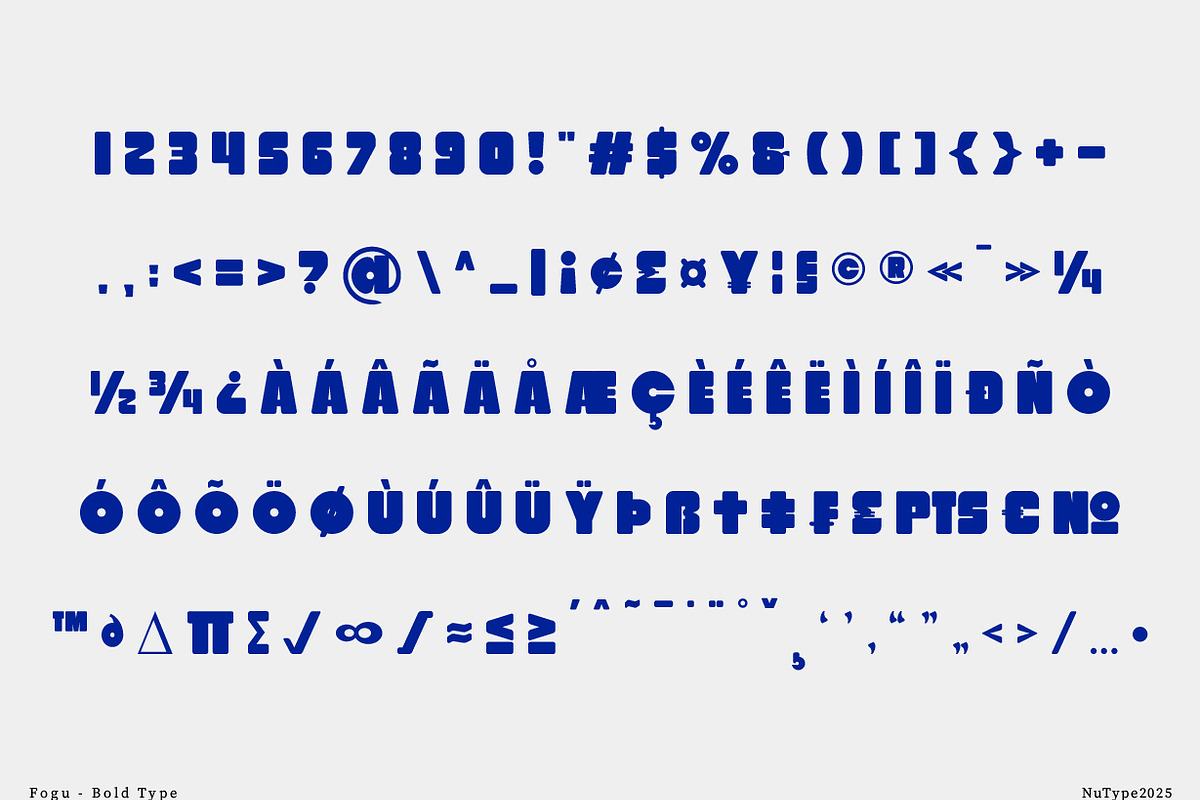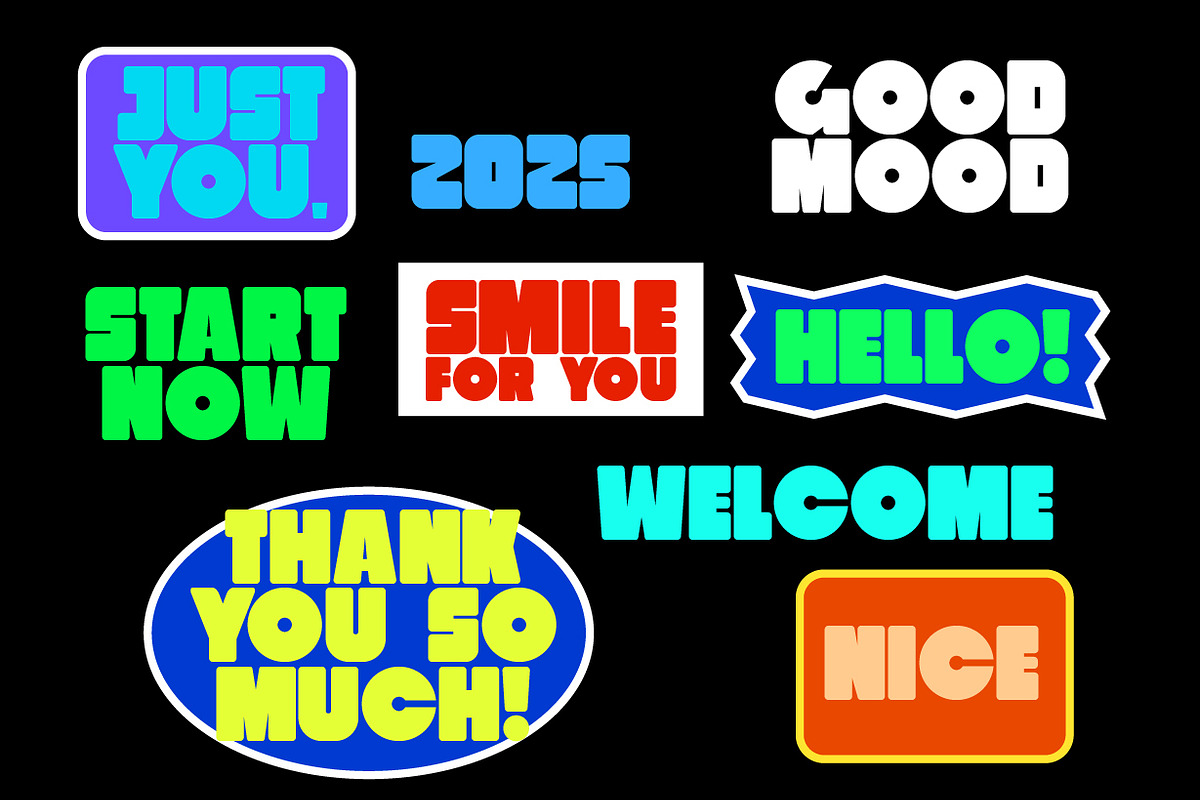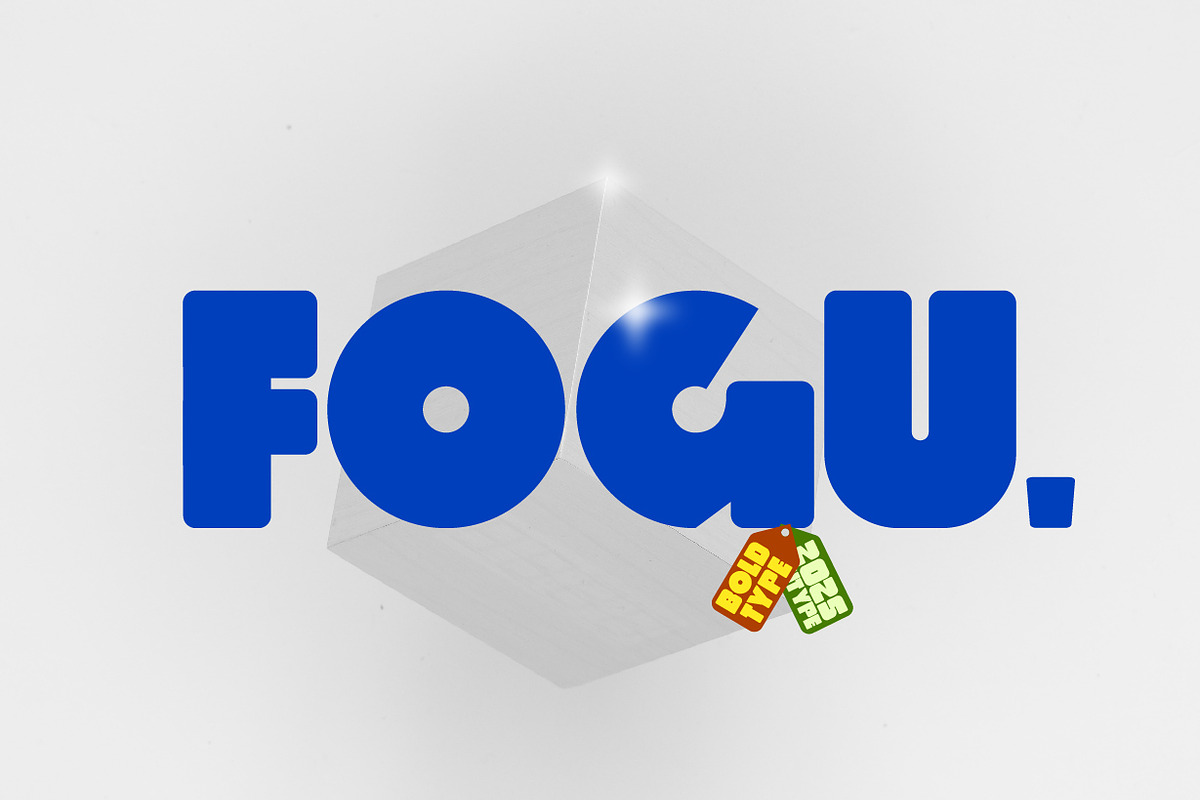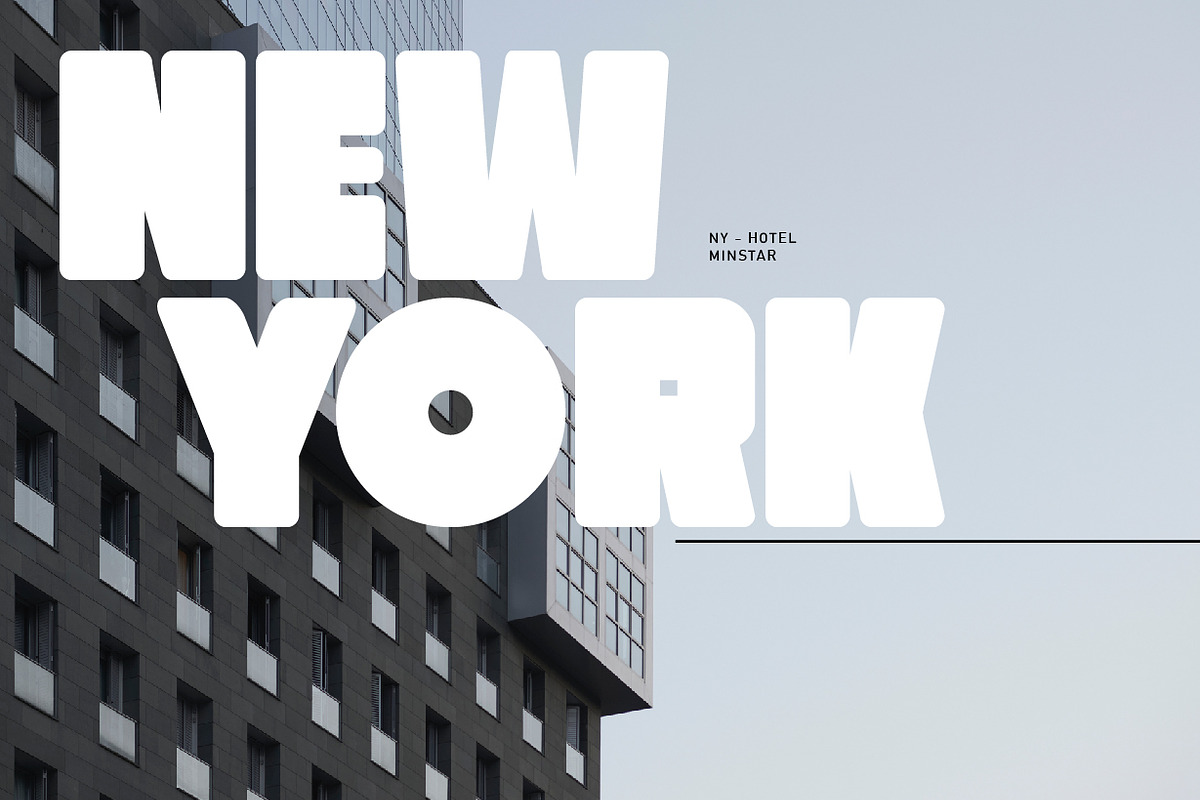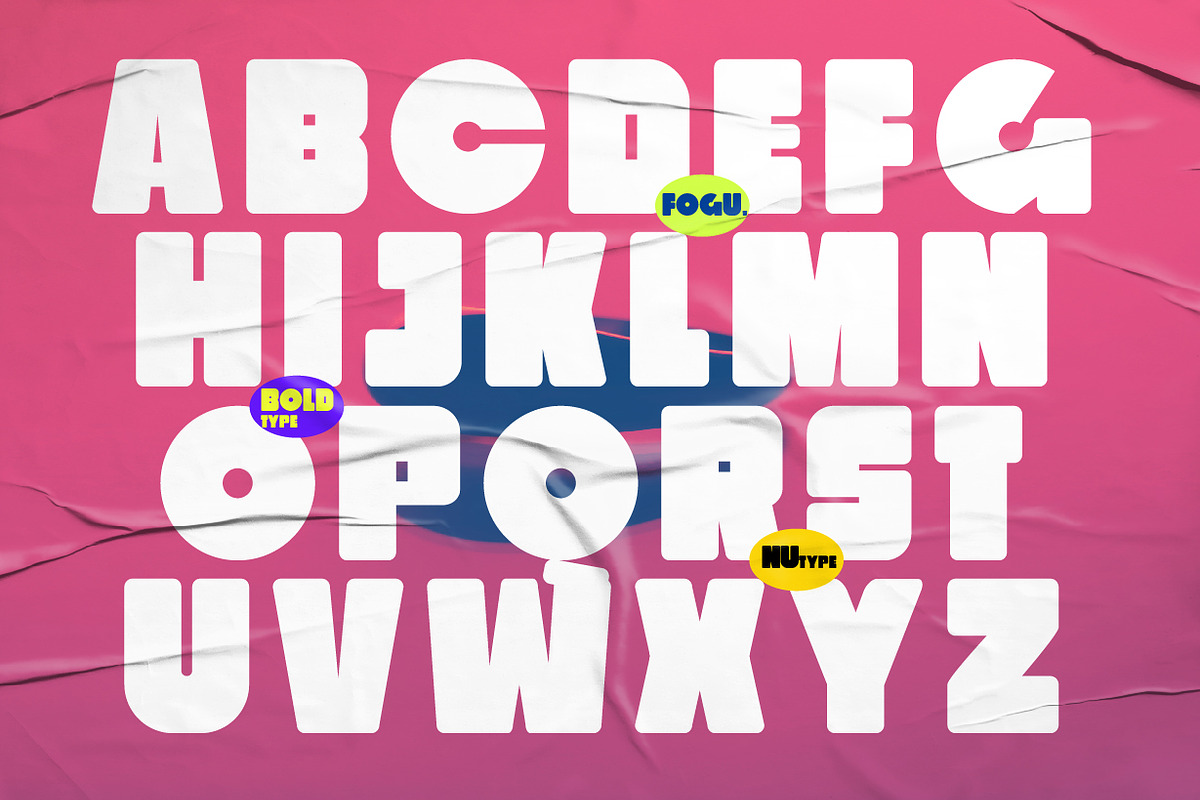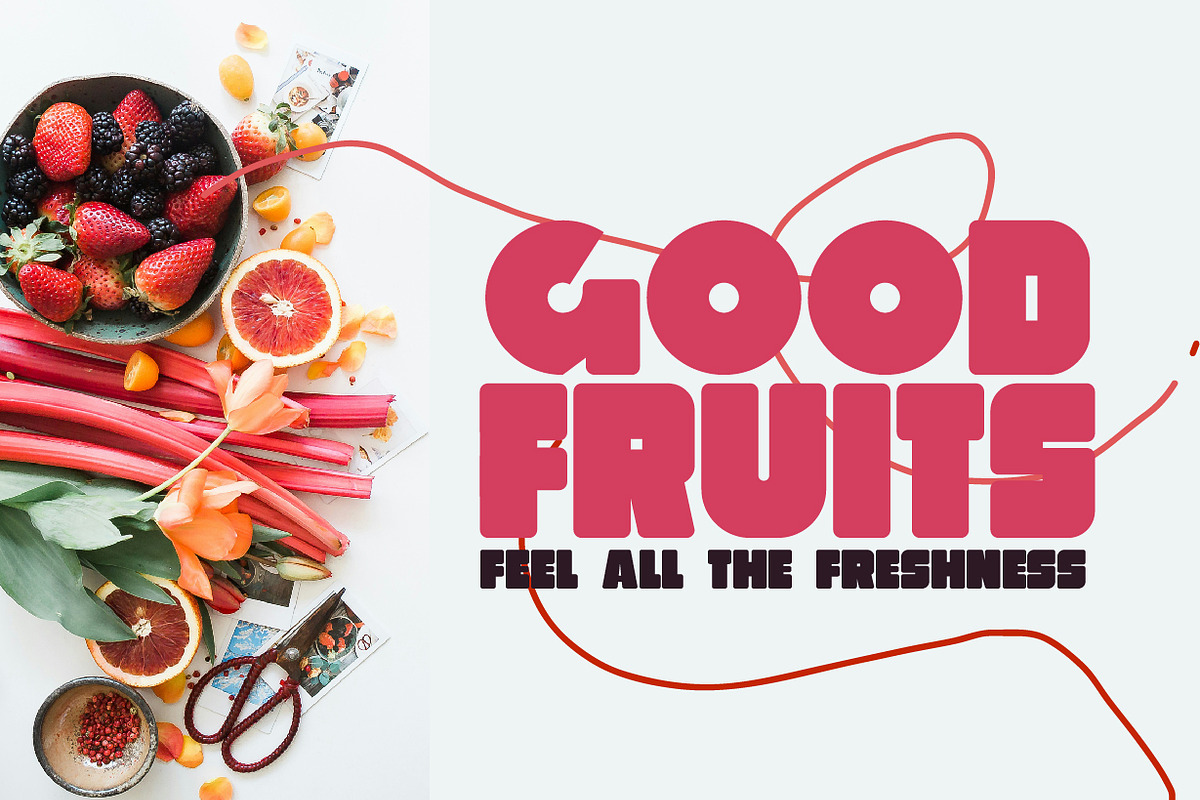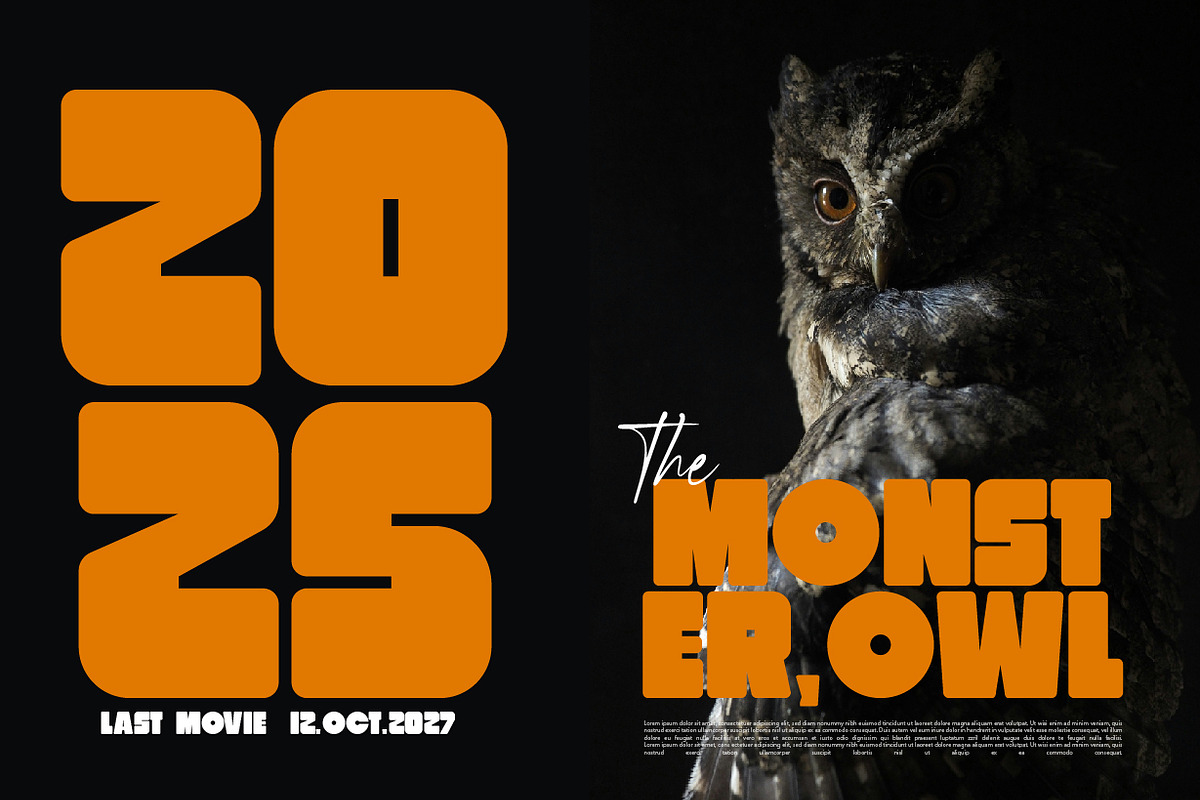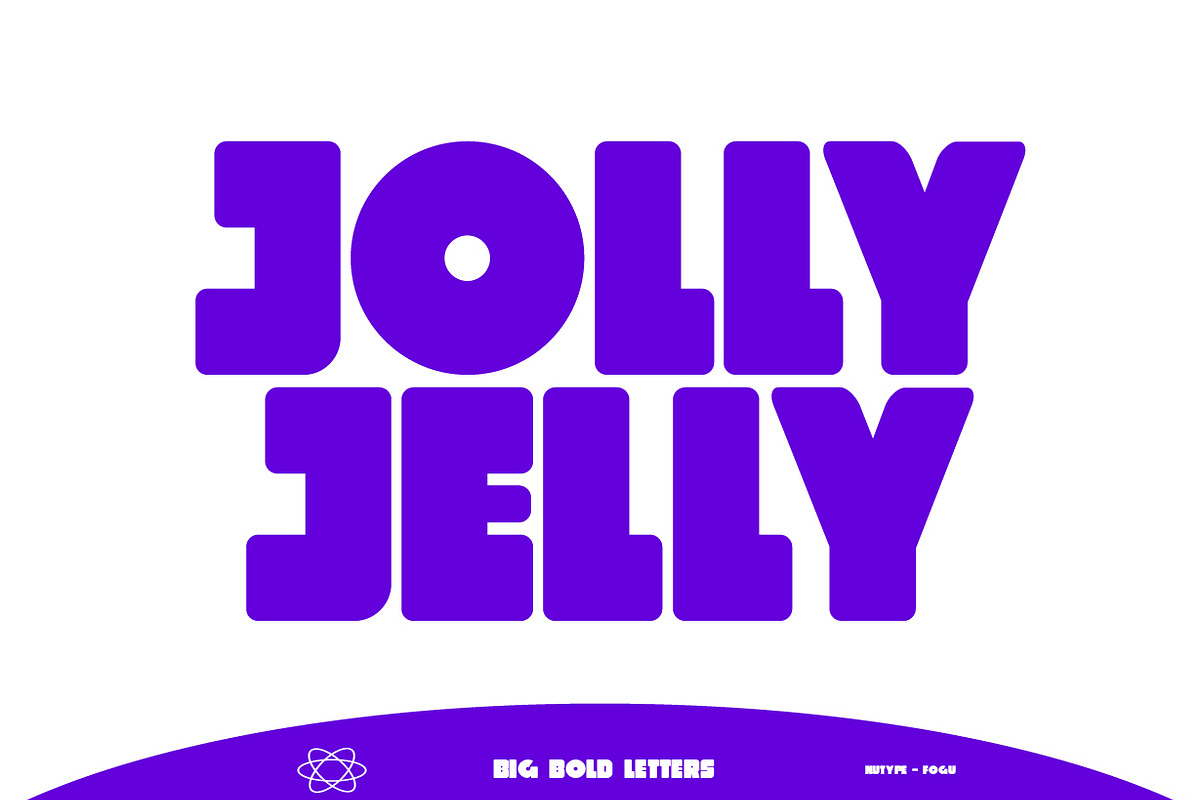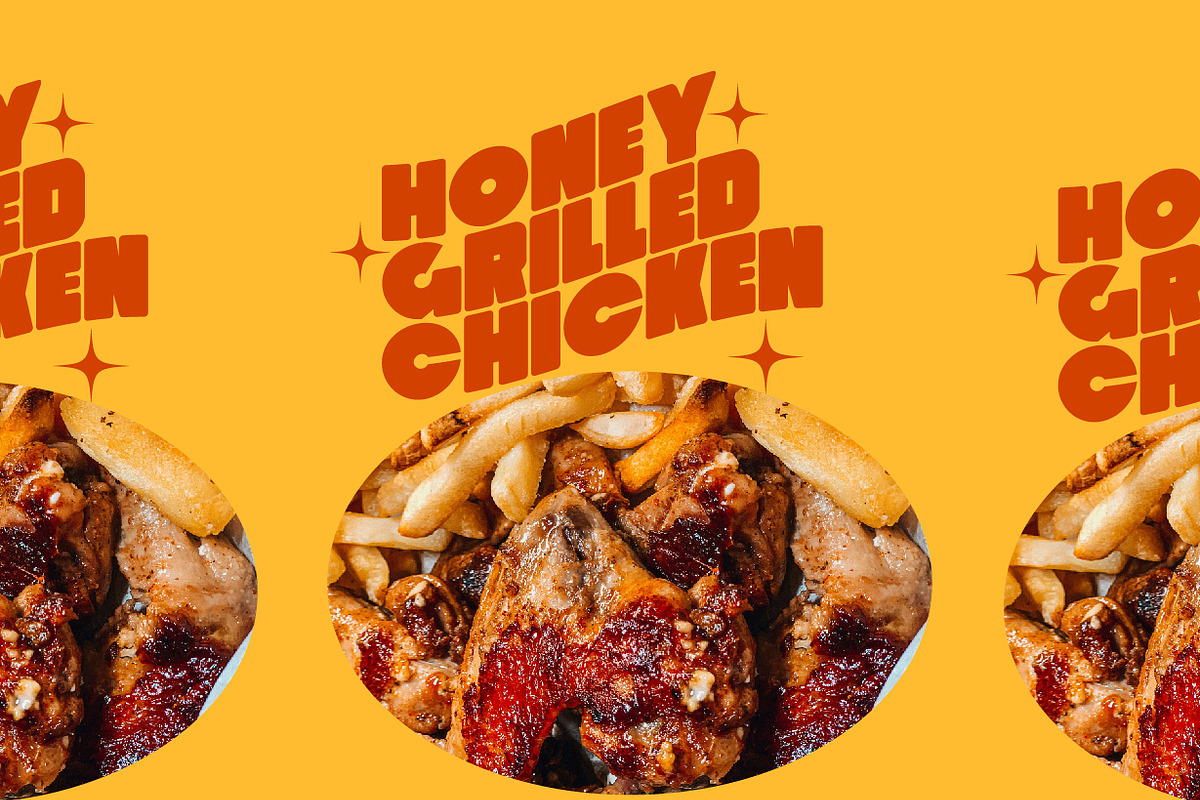
Fogu - Display Bold Font
Introducing Fogu which has a unique and cute design. You can use Fogu in modern and contemporary designs, and is suitable for use on various media such as stickers, posters, covers, typography and other digital media.
FEATURE:
Uppercase. Foreign Support, Numbers and Punctuation.